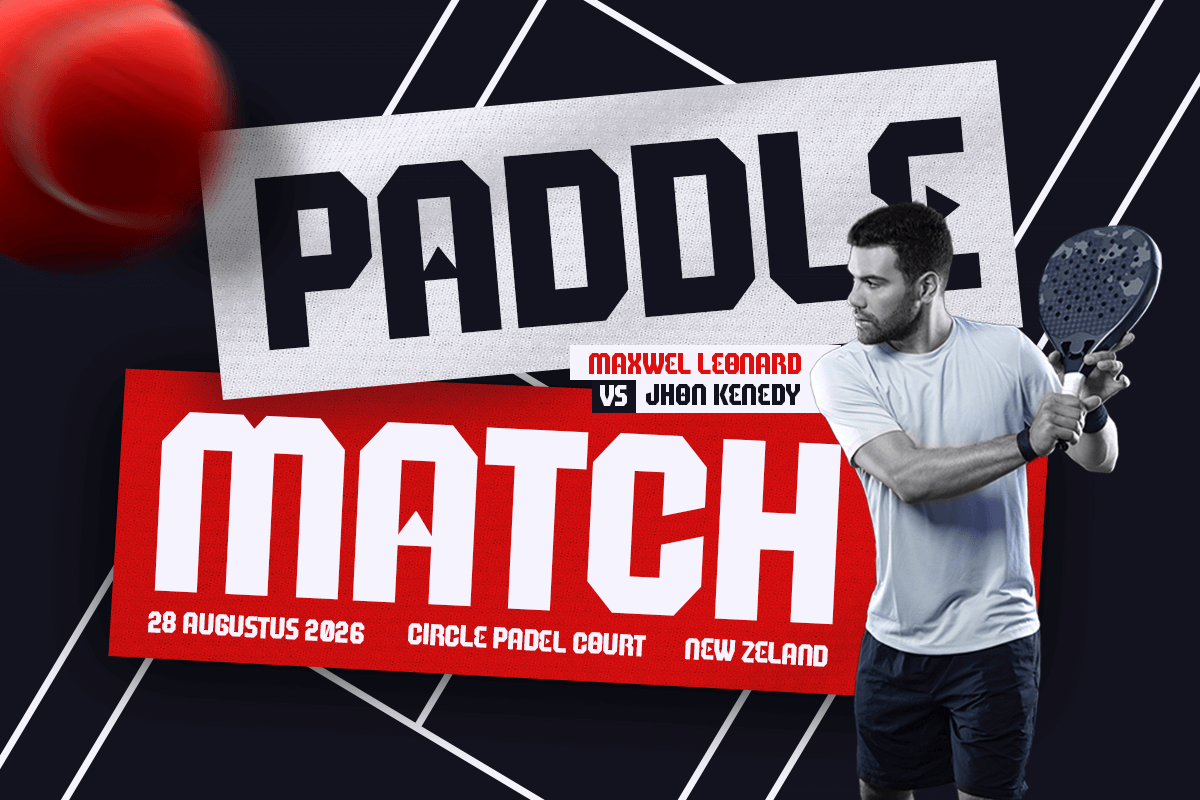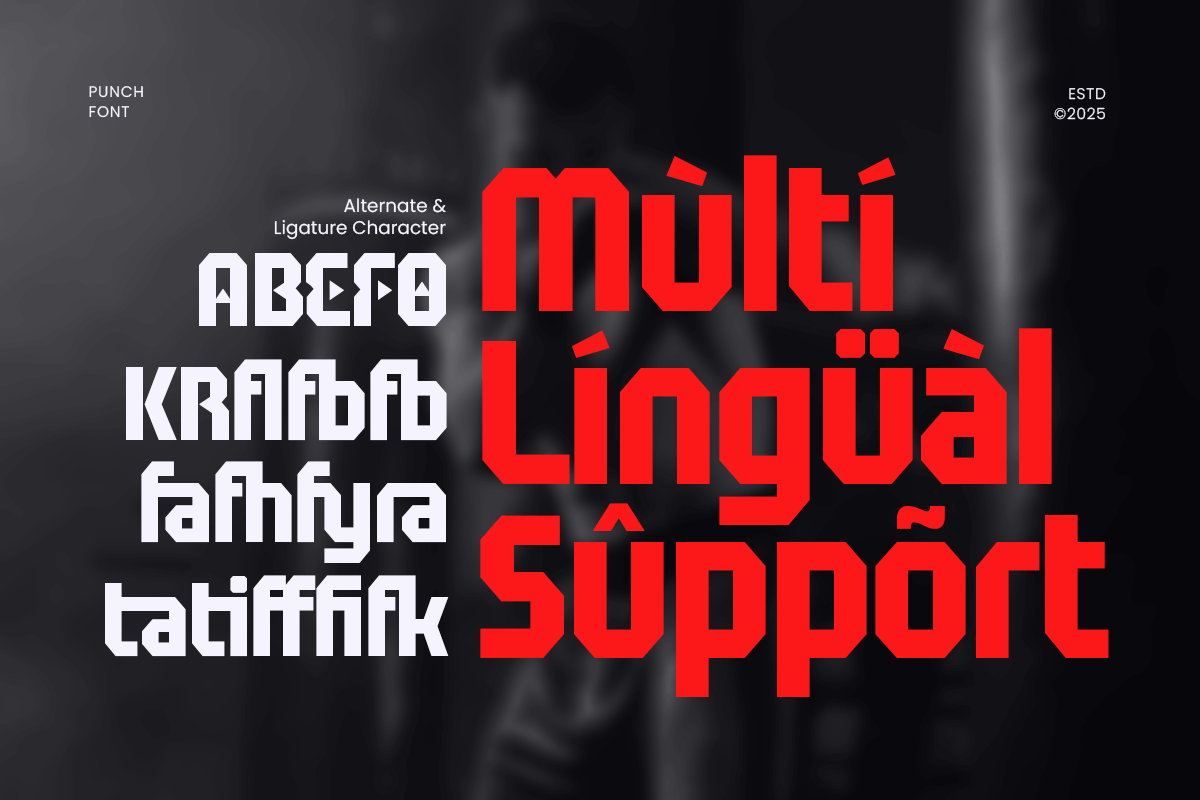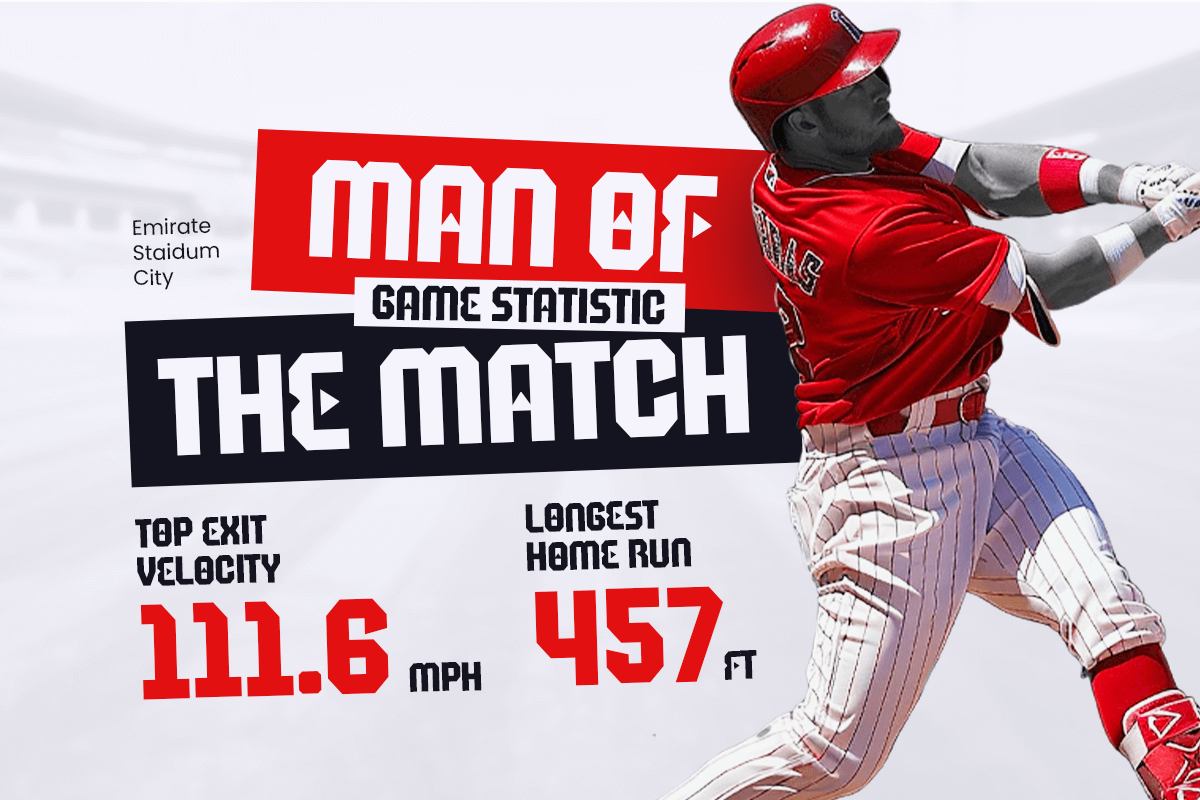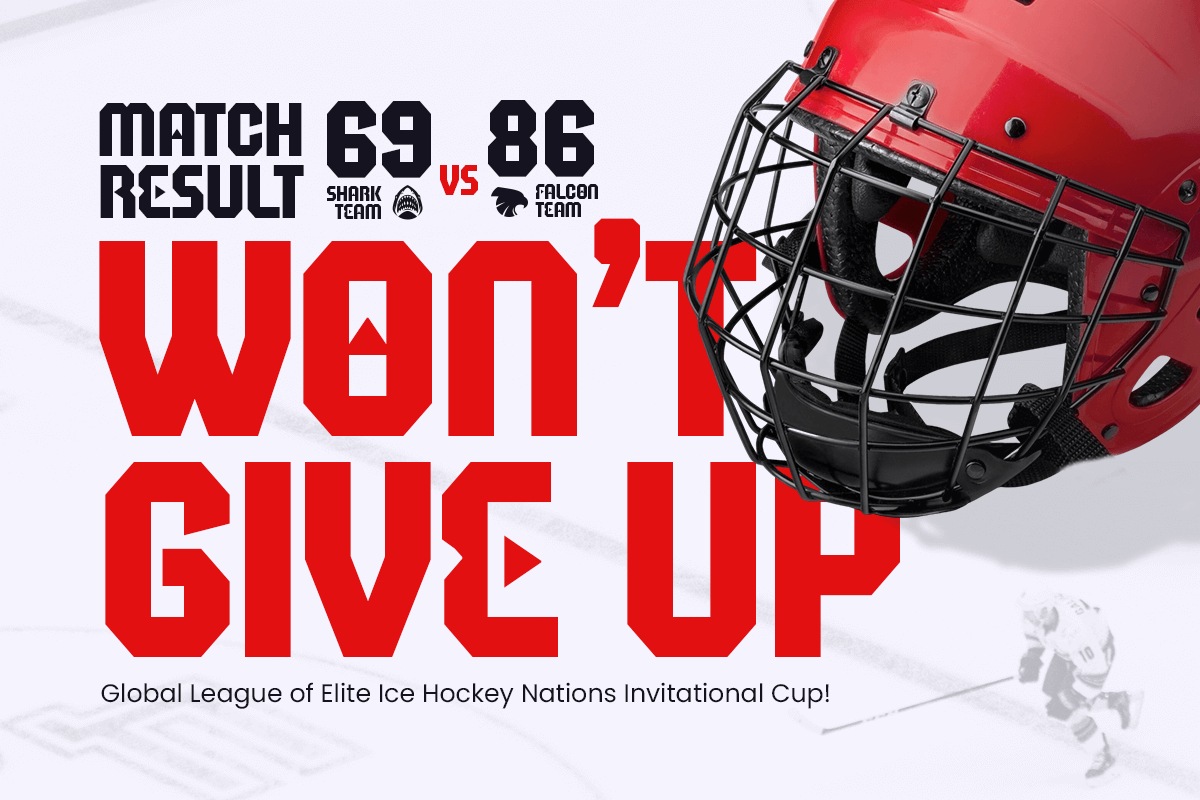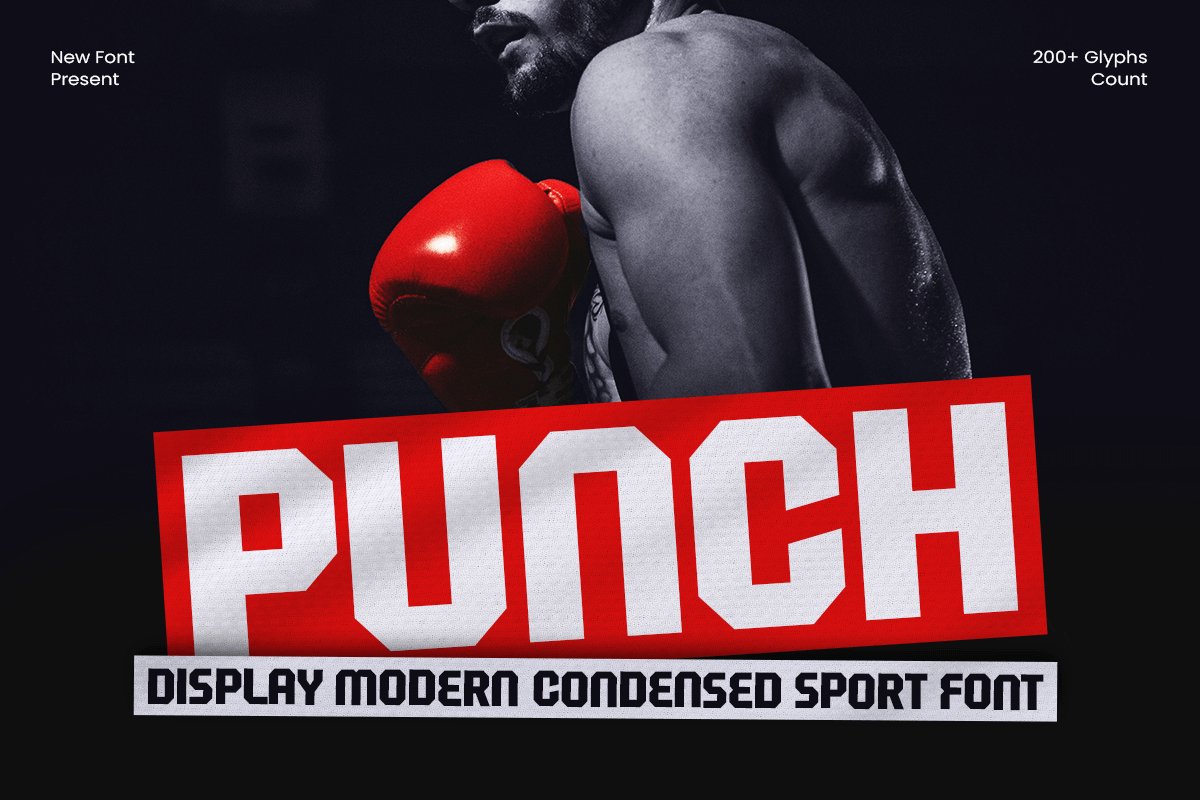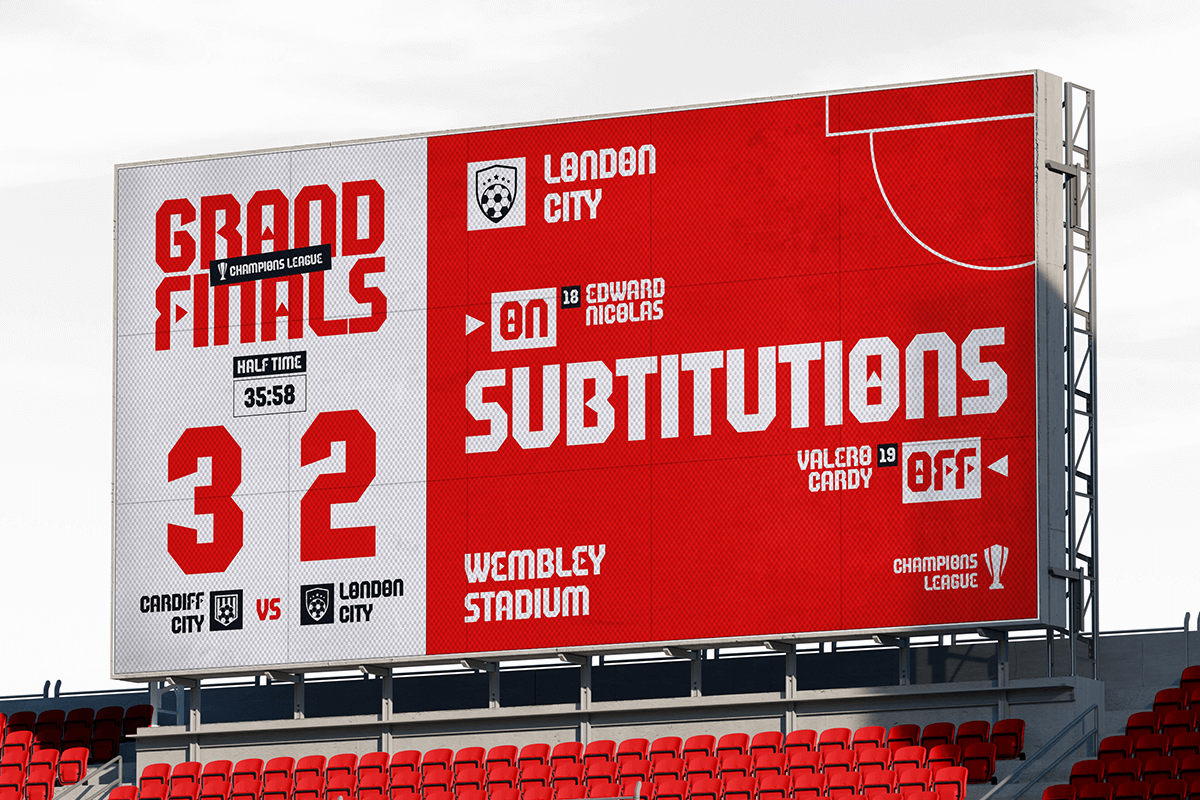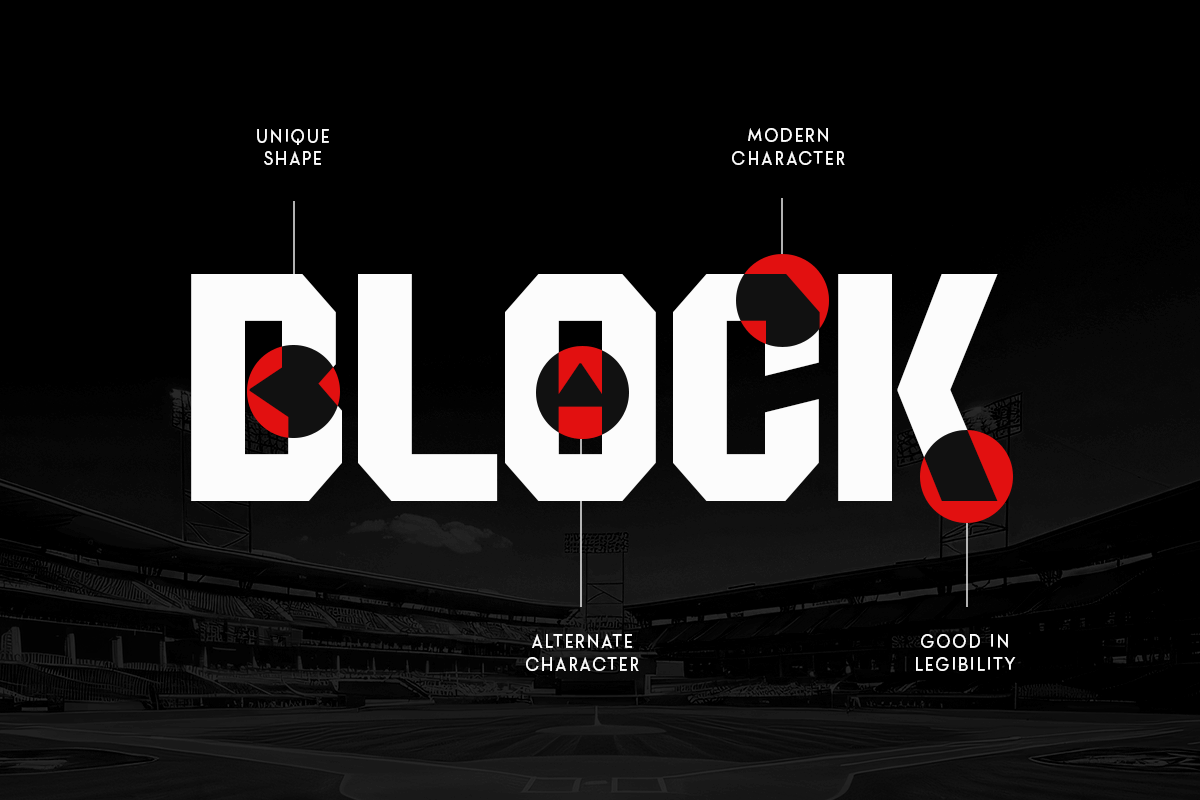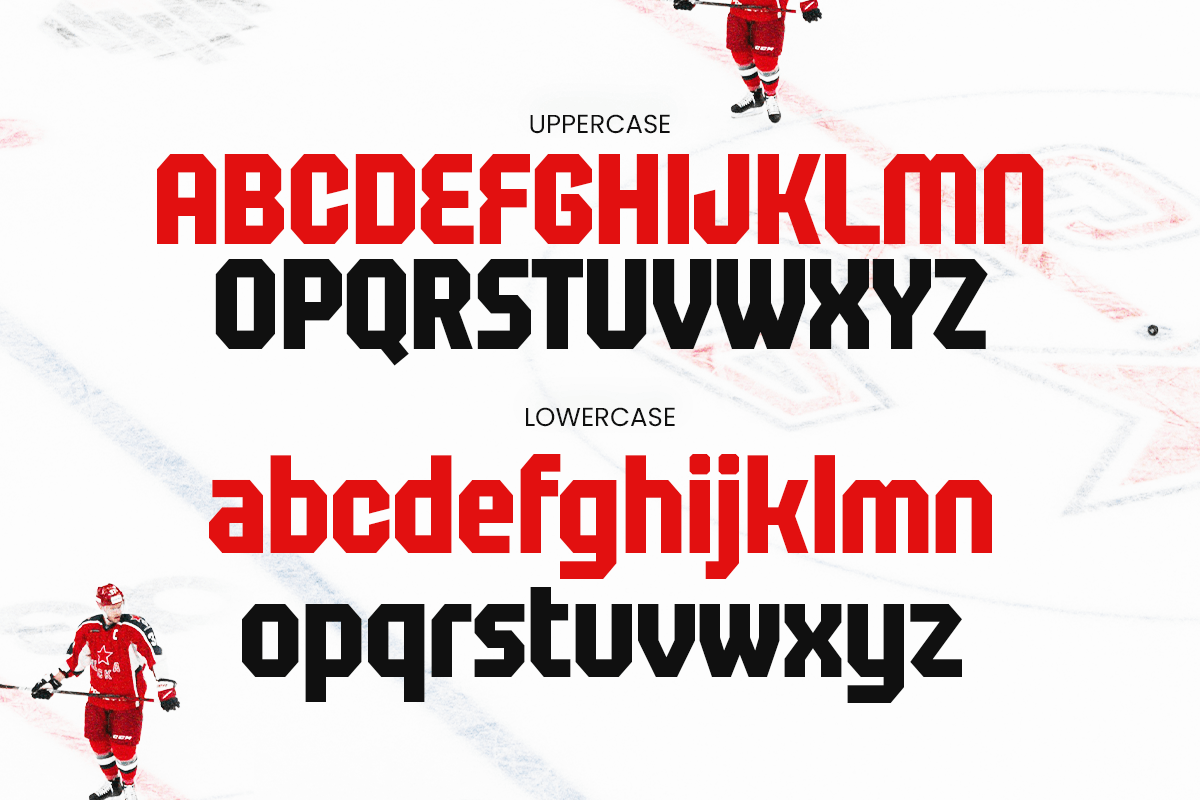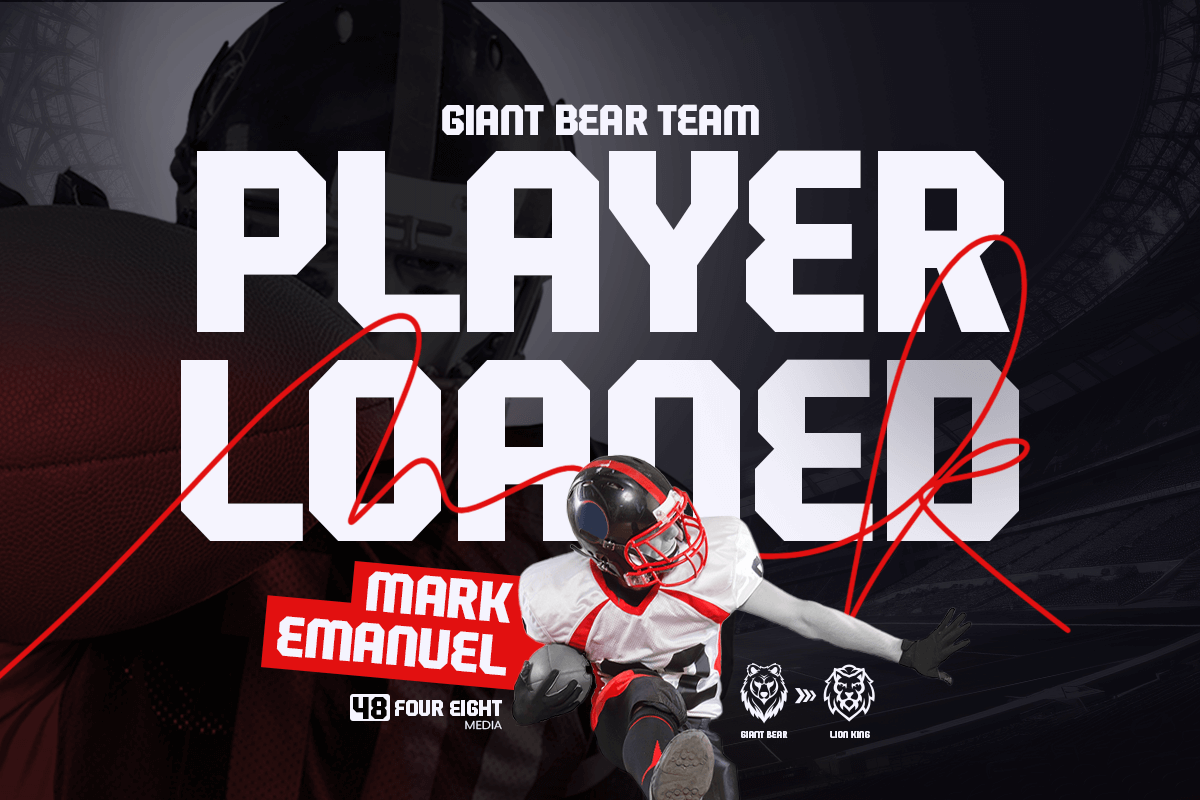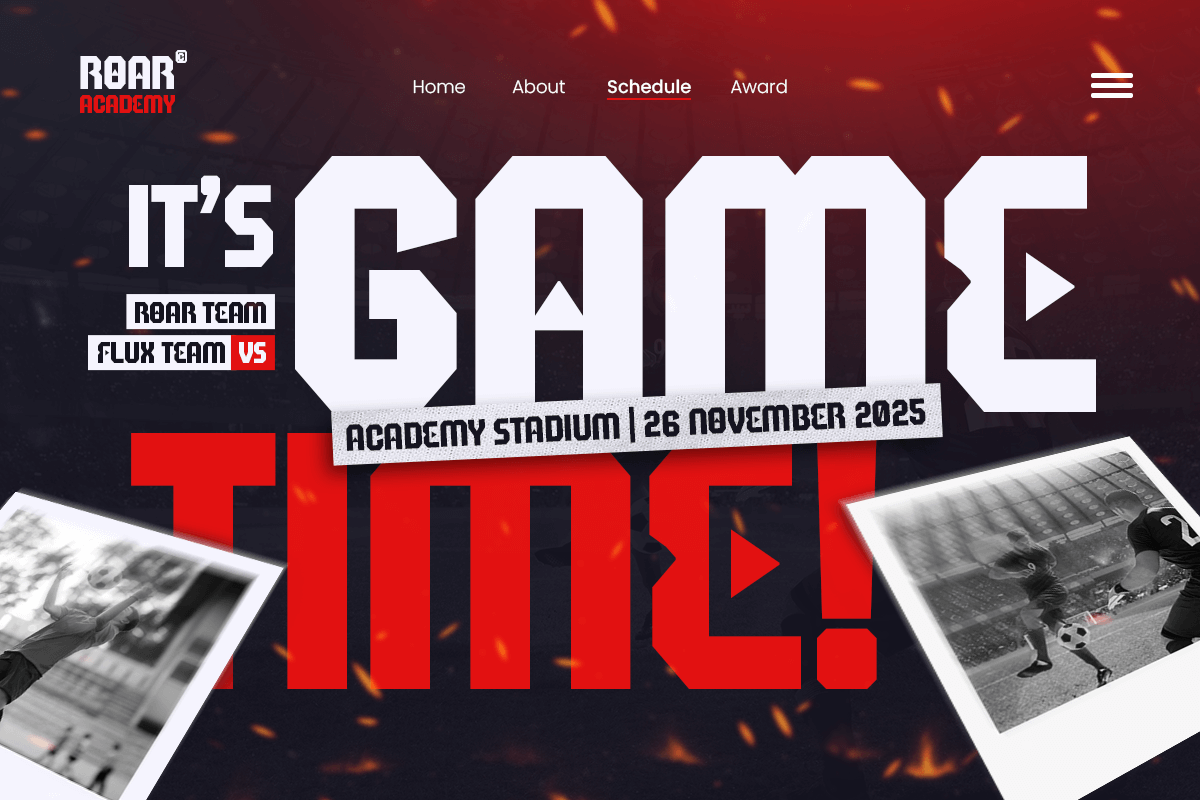
Punch - Display Condensed Sport Font
Punch – Display Condensed Sport Font
Punch is a bold and energetic condensed display font designed for sports branding, powerful headlines, and dynamic modern layouts. With its strong letterforms, compact width, and impactful visual presence, Punch brings intensity and speed to every design—perfect for sports teams, fitness brands, athletic posters, gaming titles, and competitive event graphics.
The font’s tight structure and sharp details make Punch highly effective in limited spaces, ensuring maximum visibility and punchy readability. Its modern sporty style enhances any design that needs a confident, adrenaline-driven identity.
Punch – Display Condensed Sport Font Features:
* Bold condensed display style for high-impact designs
* Ideal for sports branding, posters, jerseys, and dynamic headlines
* Uppercase, lowercase, numerals, and punctuation included
* Strong, energetic shapes with excellent readability
* Perfect for athletic visuals, gaming graphics, and modern branding
Boost your design’s power with Punch – the sport display font built for speed, strength, and bold expression.